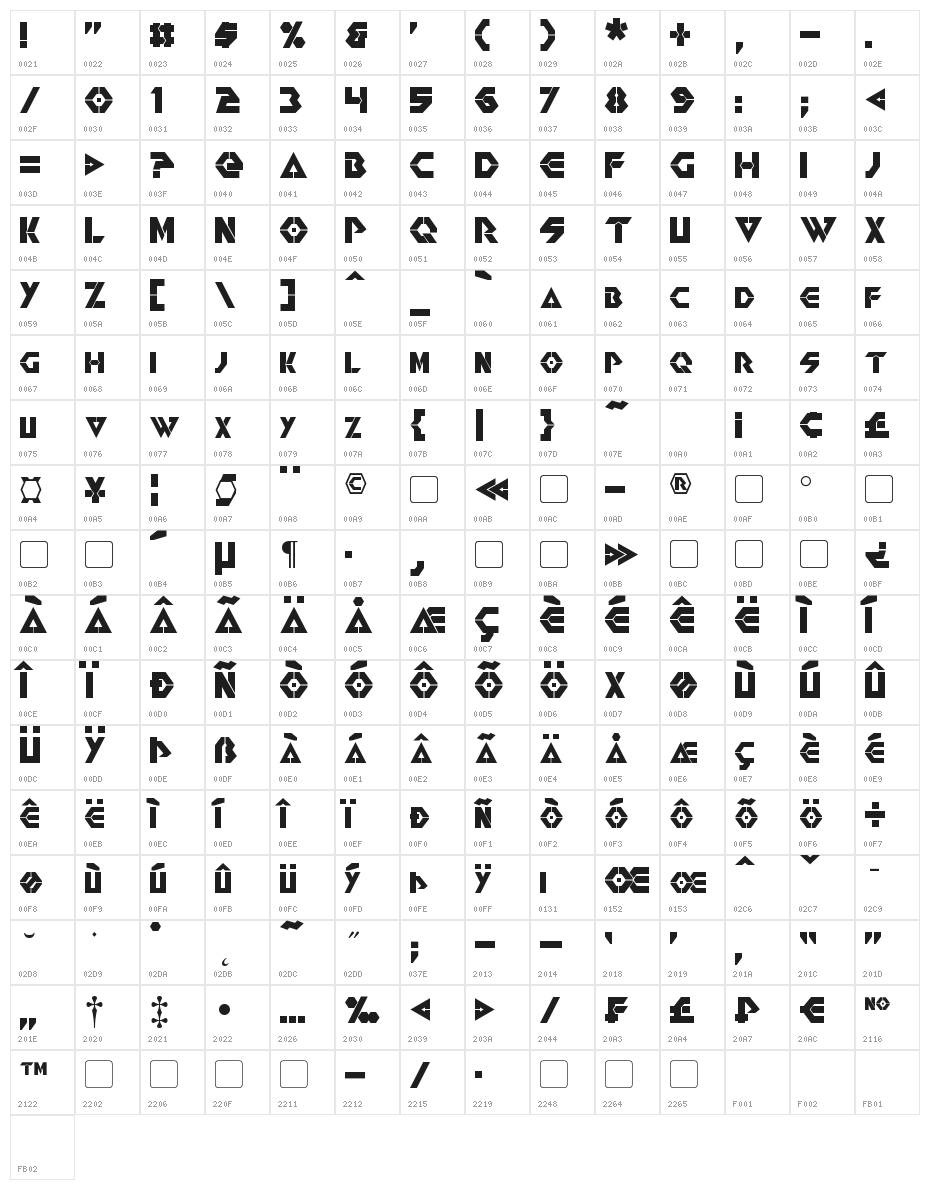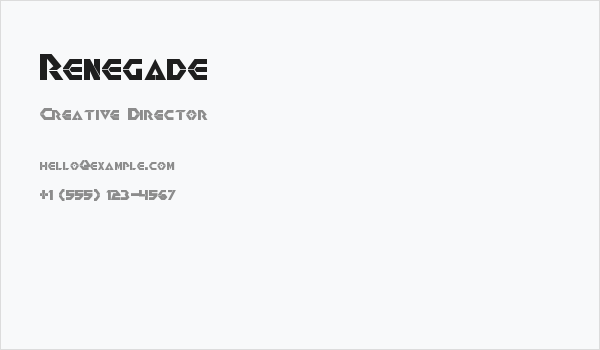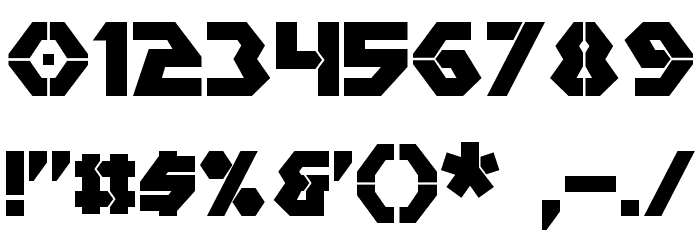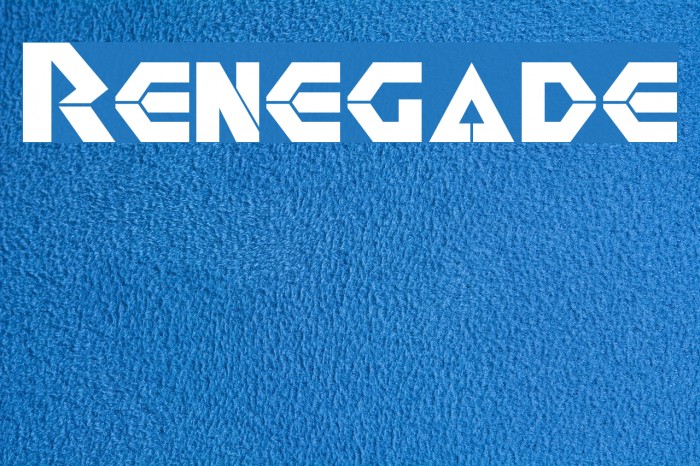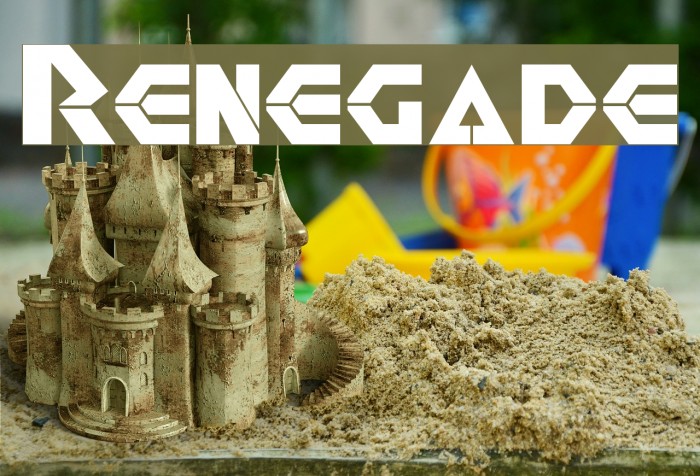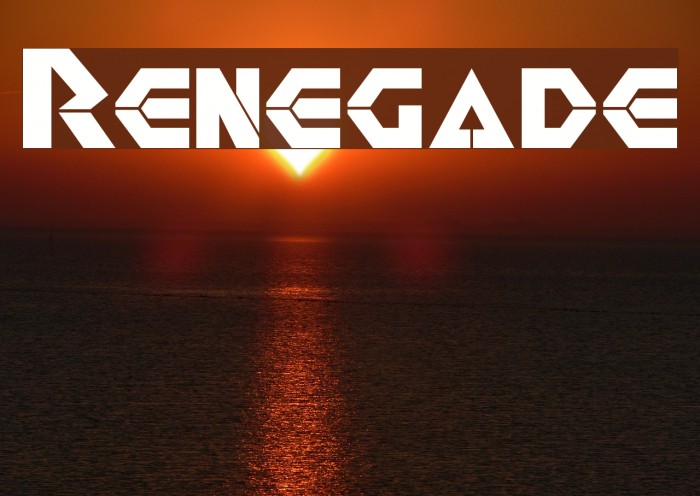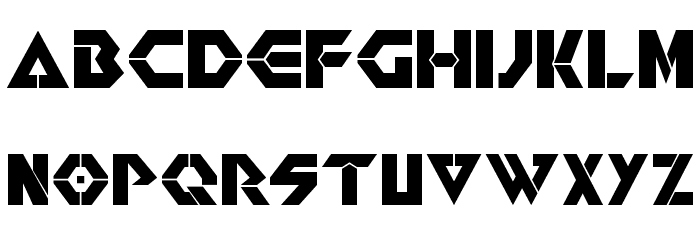
Renegade Font
Renegade Description
This font features a bold, geometric design with sharp angles and a futuristic aesthetic. Each character is constructed with a series of straight lines and angular cuts, creating a sense of movement and energy. The uppercase letters are particularly striking, with unique shapes that make them stand out. The numbers and special characters maintain the same bold and angular style, ensuring consistency across the font. This design is highly decorative, making it ideal for attention-grabbing headlines or logos. The font's distinct appearance is both modern and edgy, suitable for projects that require a strong visual impact.
| Proposed Projects | Ideal for sci-fi themed posters, video game titles, branding for tech companies, or any project needing a modern, edgy look. |